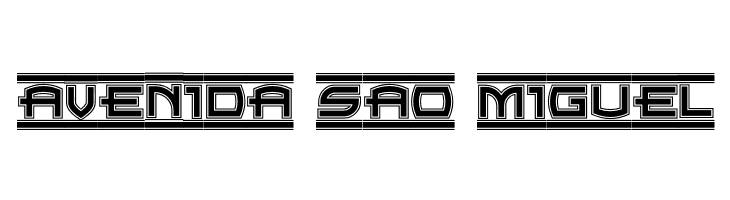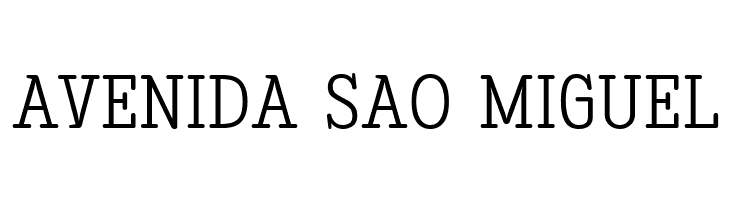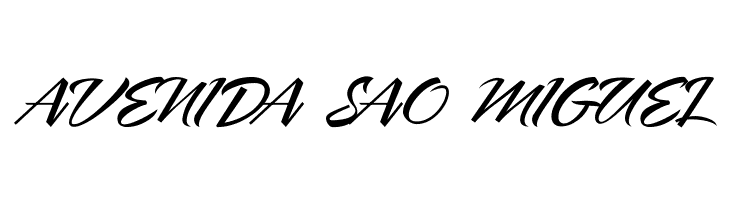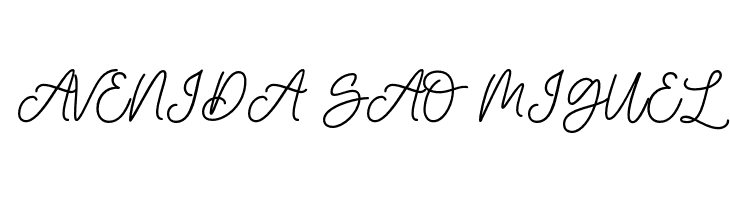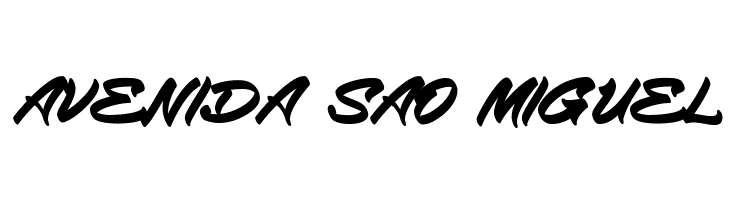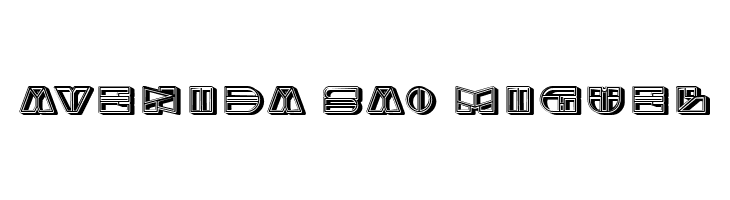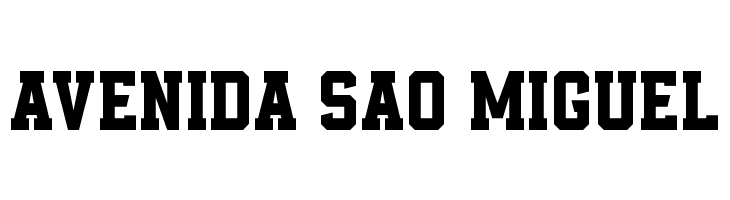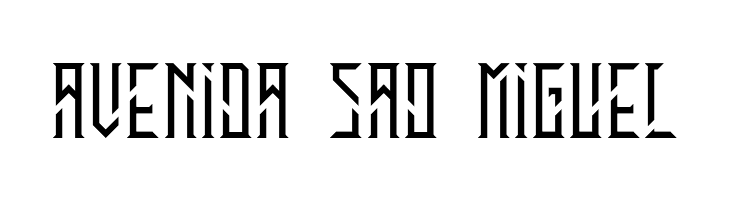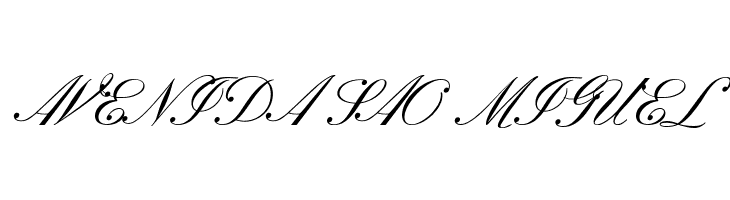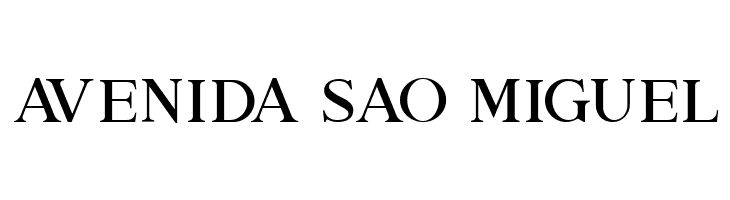
A bold, extended outline font with a modern and geometric style.
A modern, extended outline font with an italic slant, perfect for dynamic designs.
A bold, italic font with elongated, slanted letterforms and consistent stroke thickness.
A bold, outlined font with a modern and geometric style.
A bold, outlined, italic font with a modern and dynamic style.
A bold, hand-drawn font with expressive, textured strokes.
An elegant and sophisticated script font with flowing, cursive letterforms.
A graceful and flowing script font with elegant, connected letters.
A tall, narrow, and modern sans-serif font with clean lines and rounded edges.
A bold, slanted script font with elegant curves and dynamic flow.
A bold, scribbled font with a chaotic and energetic style.
A bold, geometric font with a futuristic and modern aesthetic.
A bold, brush-stroke font with an expressive and artistic style.
A classic serif font with elegant, pronounced serifs and medium contrast.
A bold, dynamic script font with connected characters and strong presence.
A bold, geometric font with sharp angles and a modern style.
A bold, textured font with a hand-drawn, crosshatched style.
A bold, handwritten font with dynamic, flowing strokes.
A bold, geometric font with an architectural, three-dimensional style.
A bold, geometric font with a vintage sports style.
A bold, blocky font with a vintage sports feel.
A bold, geometric font with a futuristic and decorative style.
A bold, decorative Blackletter font with intricate, Gothic-inspired details.
A bold, intricate blackletter font with gothic and medieval influences.
A bold, brush-style font with a handcrafted, dynamic appearance.
A cursive, handwritten-style font with elegant, flowing strokes.
A modern, geometric font with bold, clean lines and sharp angles.
Playful, hand-drawn sans-serif with rounded, irregular forms.
A bold, angular font with a modern, geometric style.
A bold, angular font with a futuristic and geometric style.
A bold, geometric font with angular lines and a strong visual impact.
A light, classic serif font with elegant and refined details.
A light, elegant serif font with an italic style, perfect for sophisticated designs.
A playful, handwritten font with fluid strokes and a casual, dynamic feel.
A bold, hand-drawn font with an expressive and dynamic style.